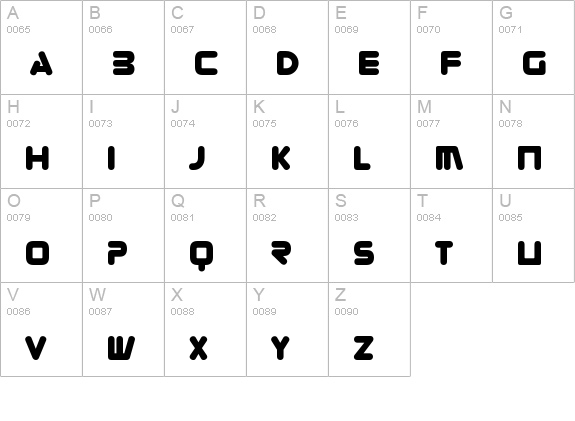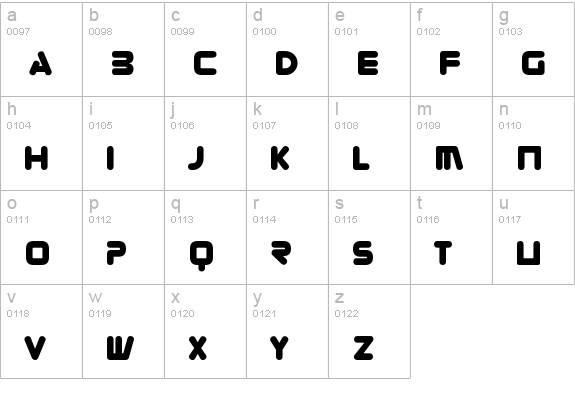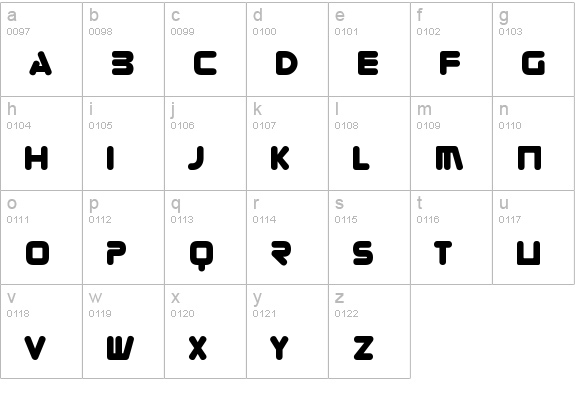
Zorque Font Details
Introducing Zorque font - a modern and stylish typeface that is sure to make your designs stand out! With its sleek lines and elegant curves, Zorque is perfect for any project that requires a touch of sophistication. Whether you're designing a logo, creating a poster, or working on a website, this versatile font is sure to impress. What's even better is that Zorque is completely free to use! That's right, you can download this amazing font for free at FontsMarket.com. Don't miss out on the opportunity to elevate your designs with this beautiful typeface. Download Zorque today and let your creativity soar!